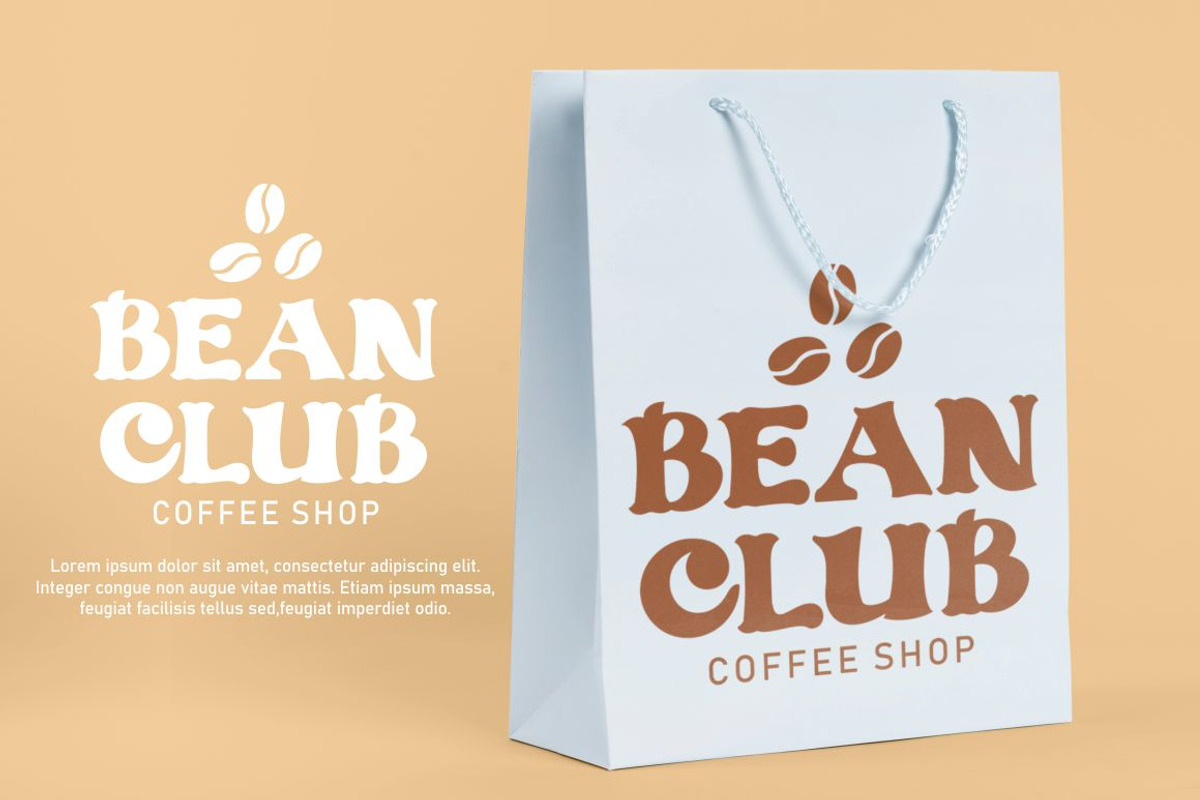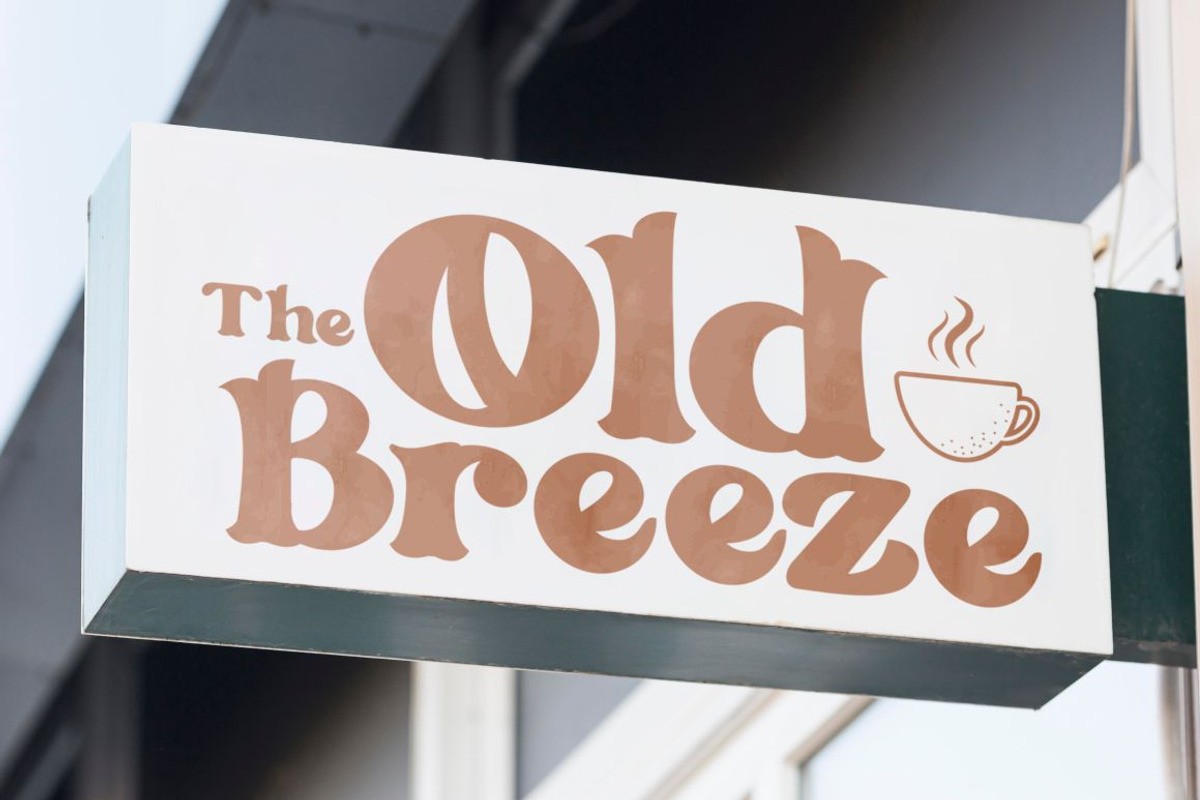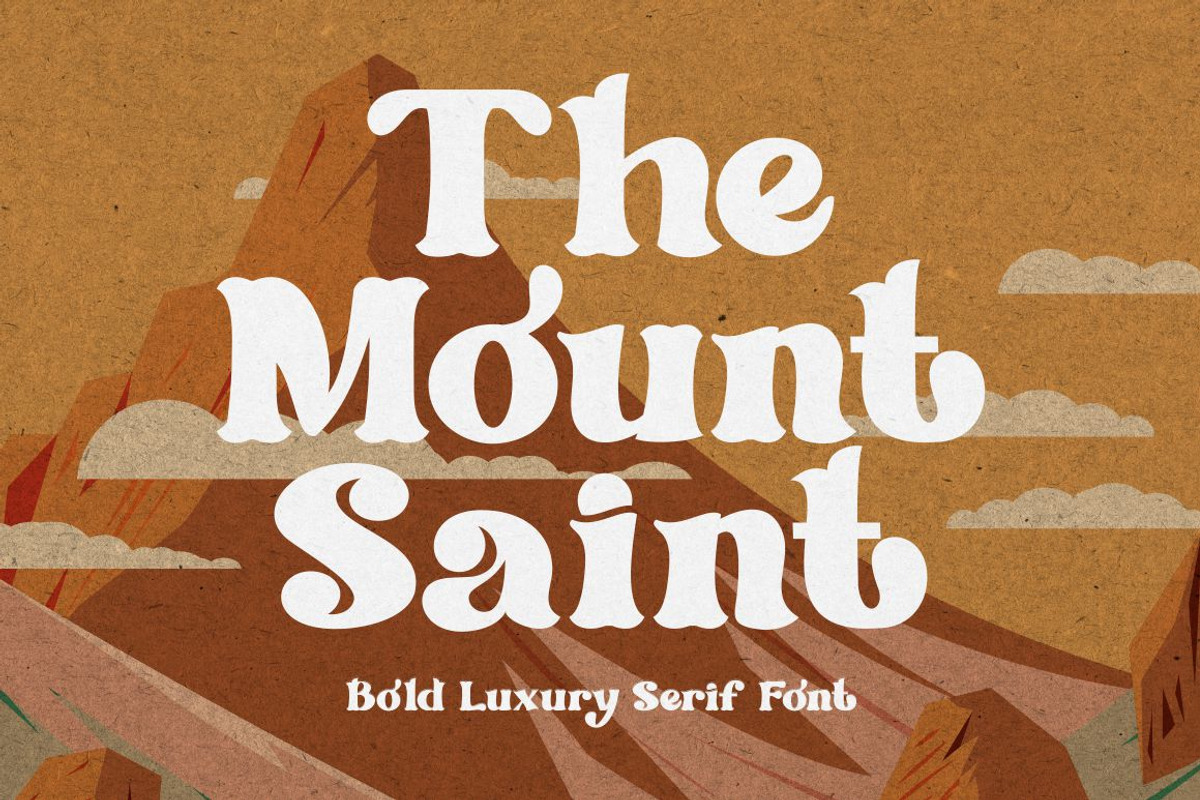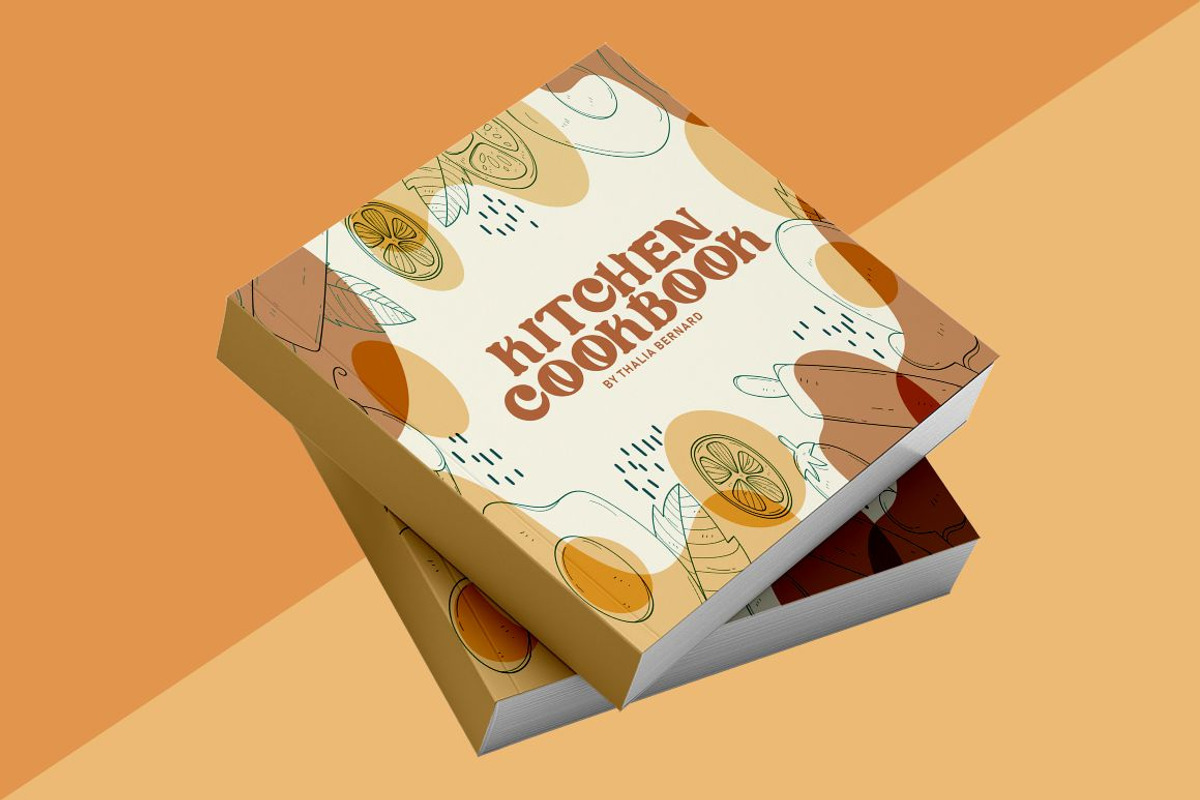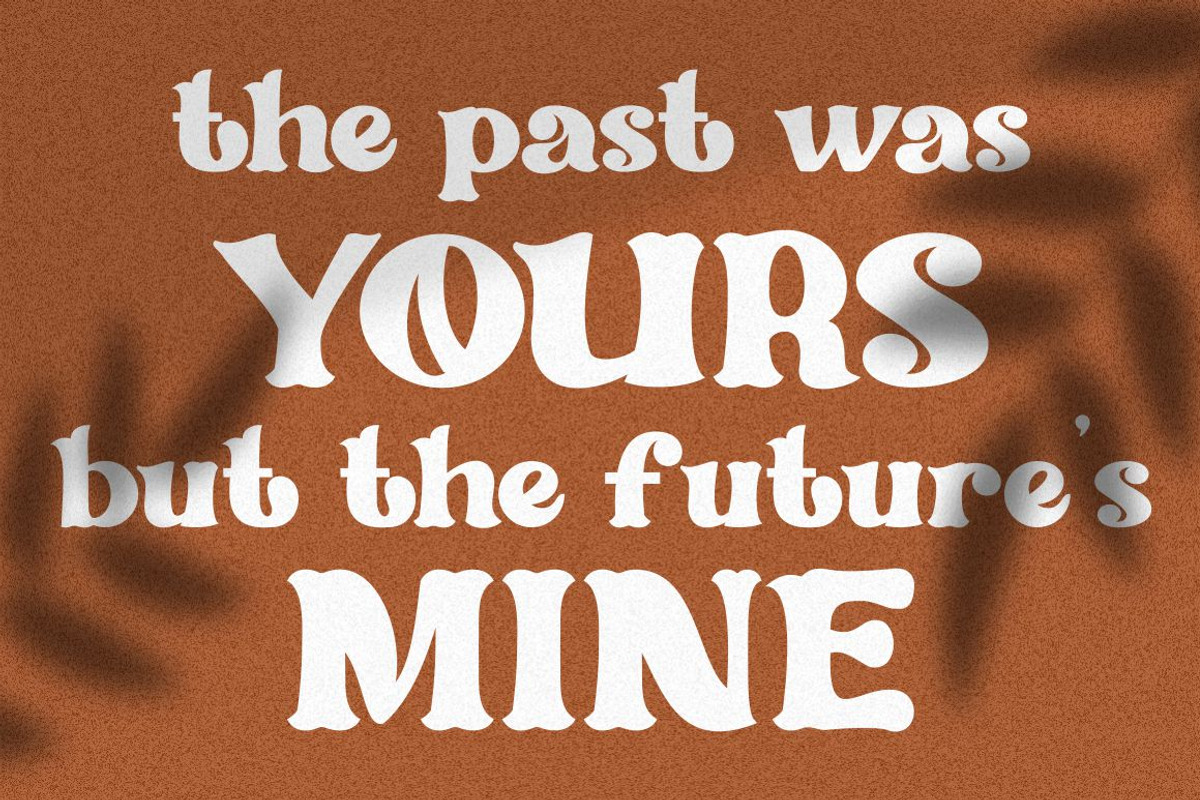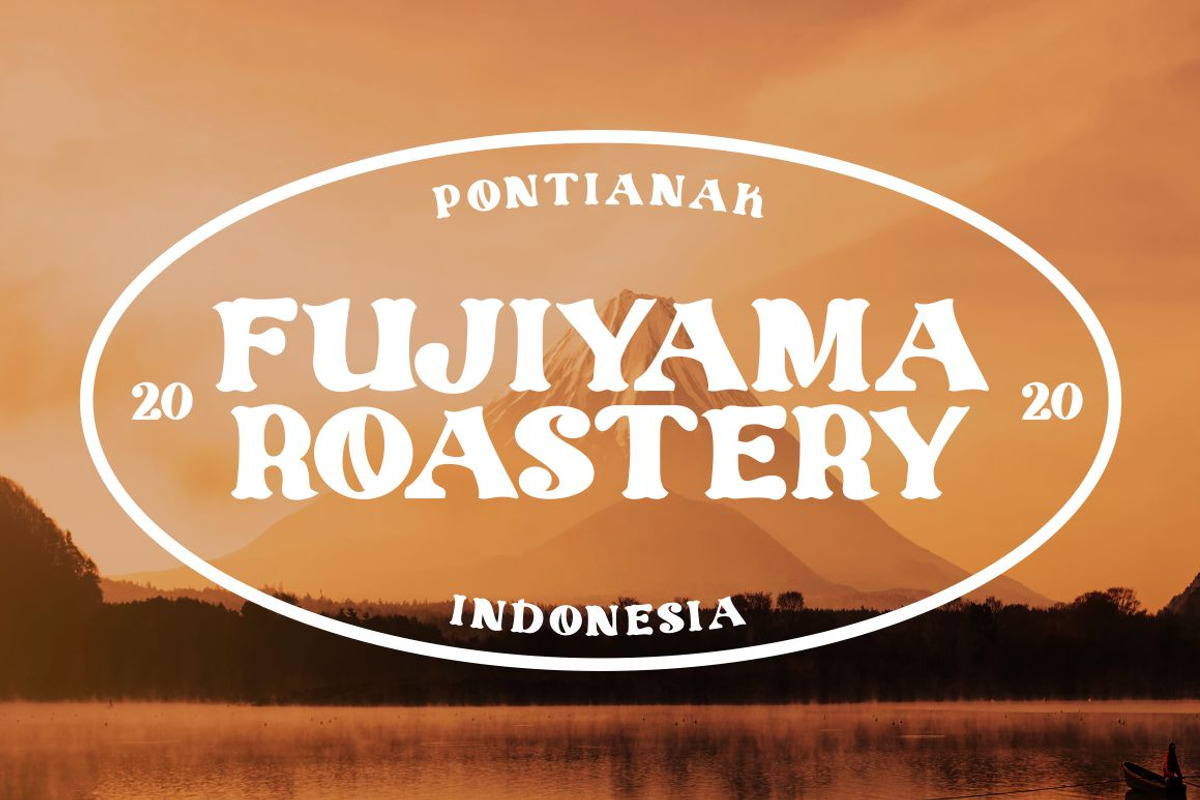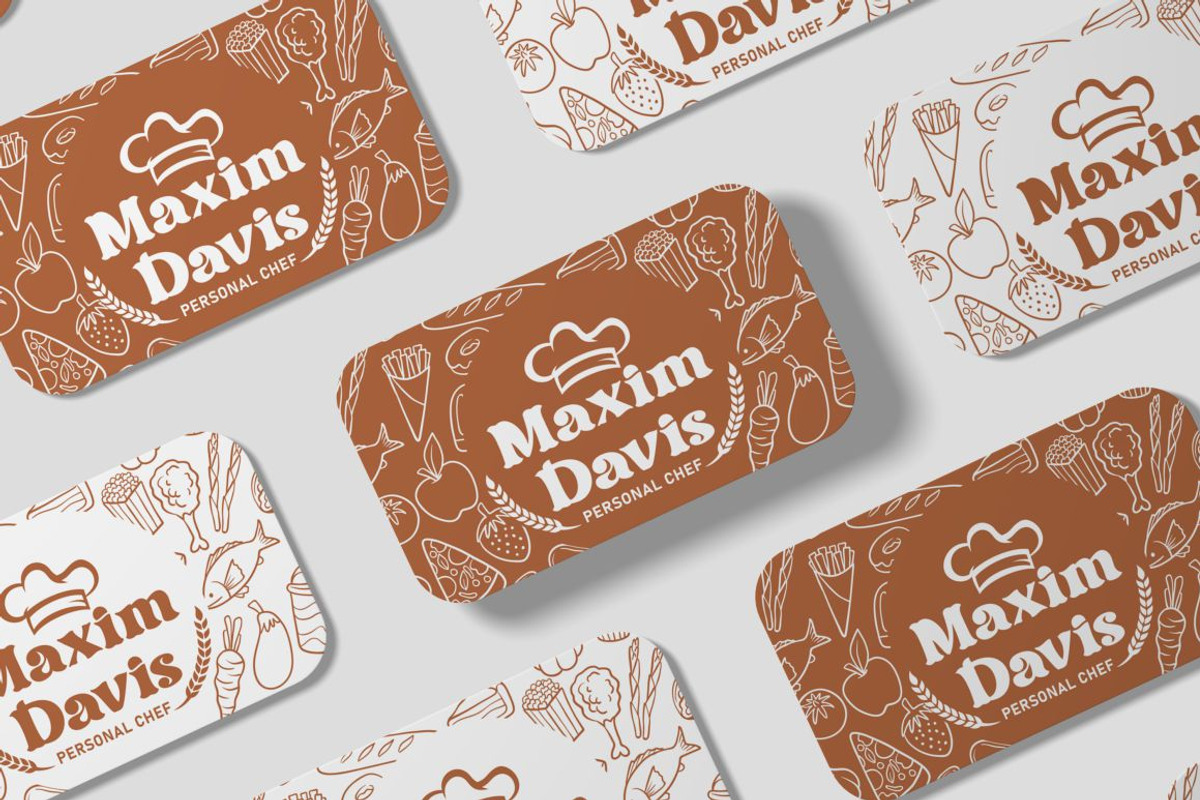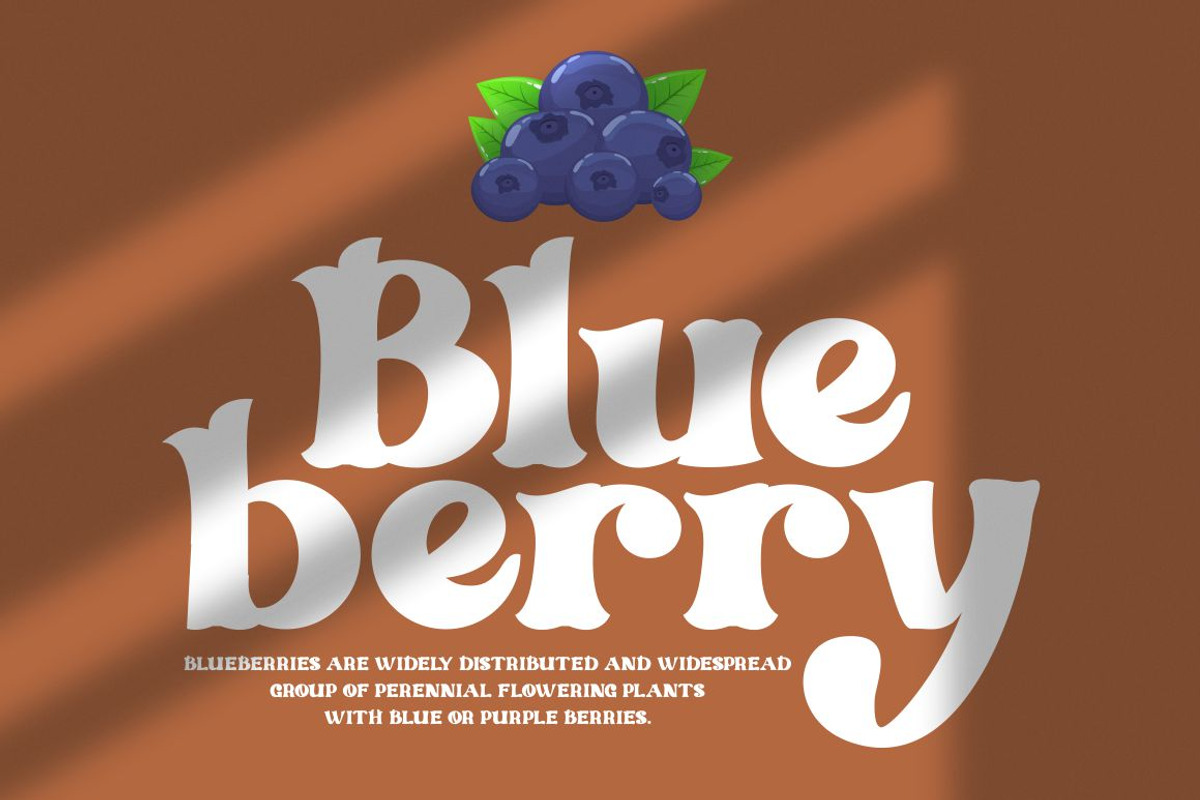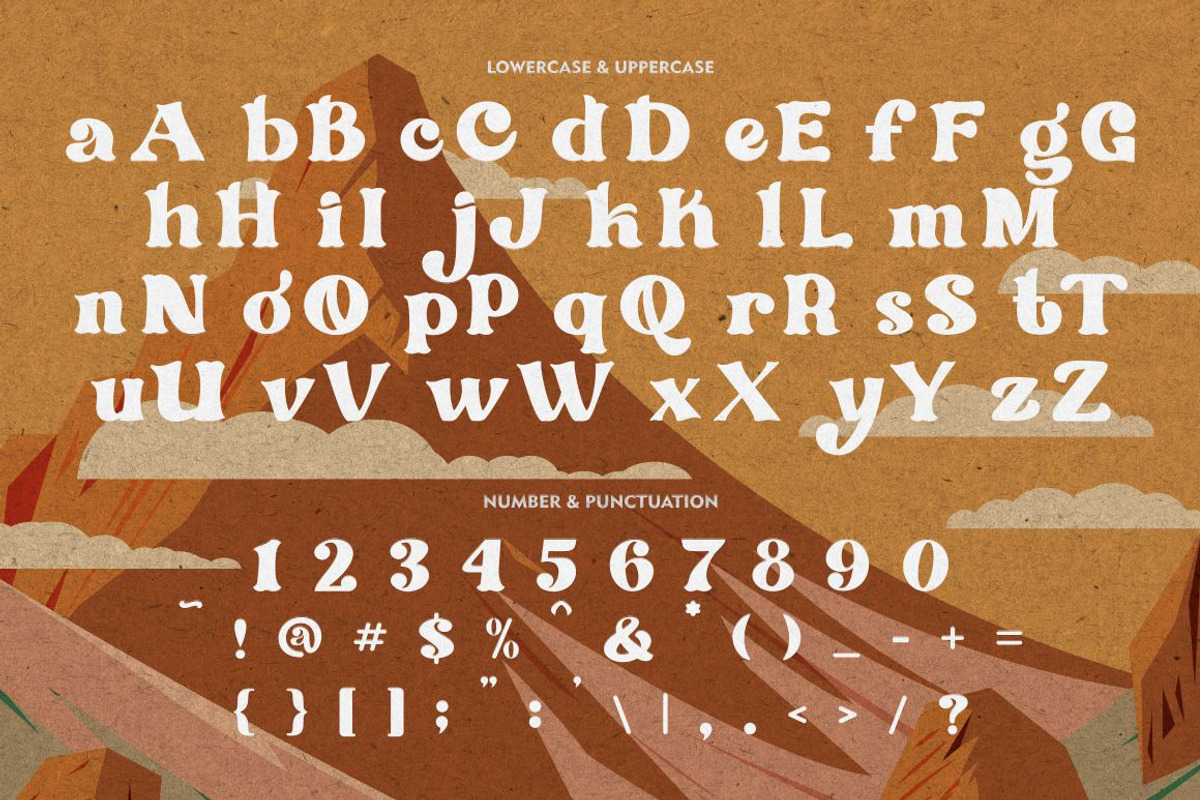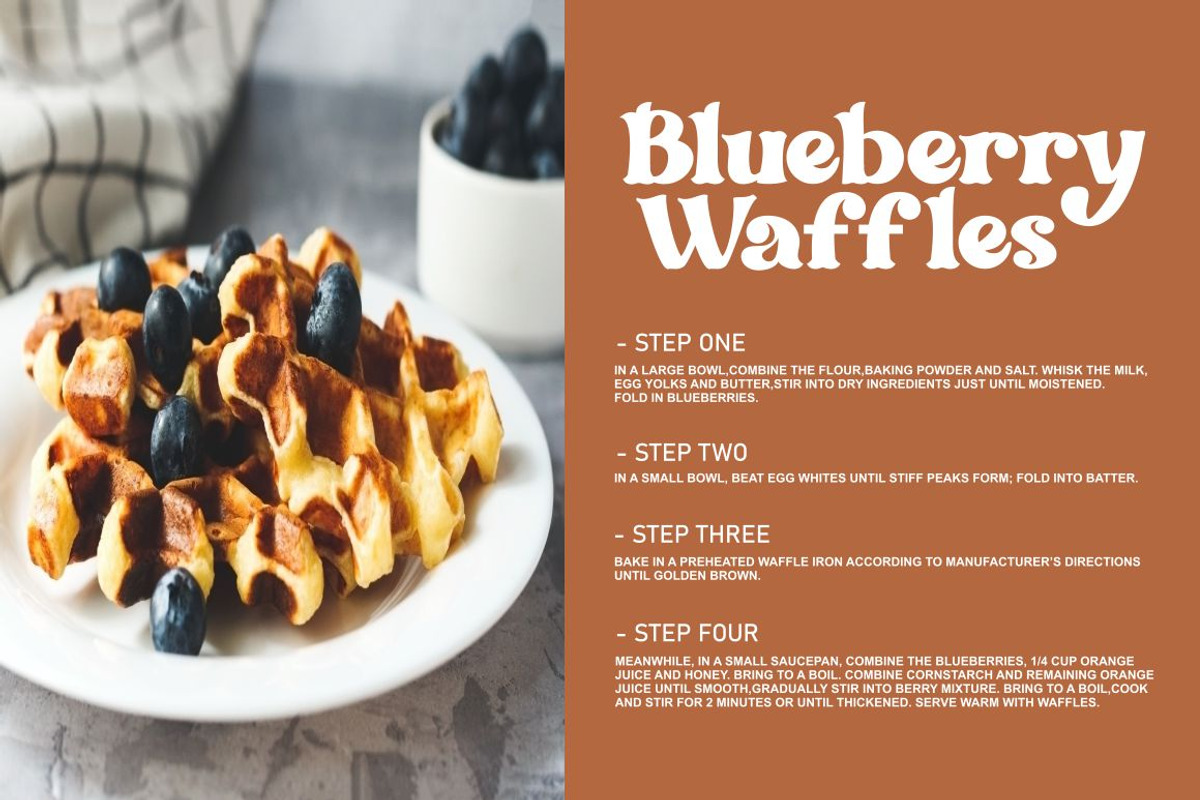
The Mount Saint - Bold Luxury Serif
The Mount Saint - Bold Luxury Serif Font
The Mount Saint - Bold Luxury Serif Font. The Mount Saint is a bold vintage style serif font with strong character and soft features. The Mount Saint is equipped with Swash, Stylistic and Titling alternates as well as with Standard and Discretionary Ligatures
And this font (The Mount Saint) is a stylish font that is both retro and bold font. It's thick curves give a 70s groovy vibe with the serifs bringing it slightly back to traditional. Comes with alternatives and ligatures, helps to create stunning logos, quotes, posts, blog posts. branding projects, magazine imagery, wedding invitations, and much more.
The alternative characters were divided into several Open Type features such as Swash, Stylistic Sets, Stylistic Alternates, Contextual Alternates, and Ligature. The Open Type features can be accessed by using Open Type savvy programs such as Adobe Illustrator, Adobe InDesign, Adobe Photoshop Corel Draw X version, And Microsoft Word. This font is also support multi language.
Comes with feature :
- Opentype (Alternates And Ligatures)
- Number, Punctuation And Symbols
- Multilanguage Support.